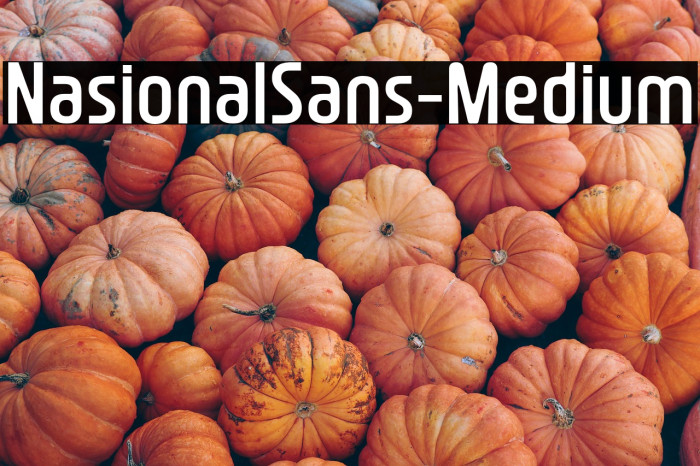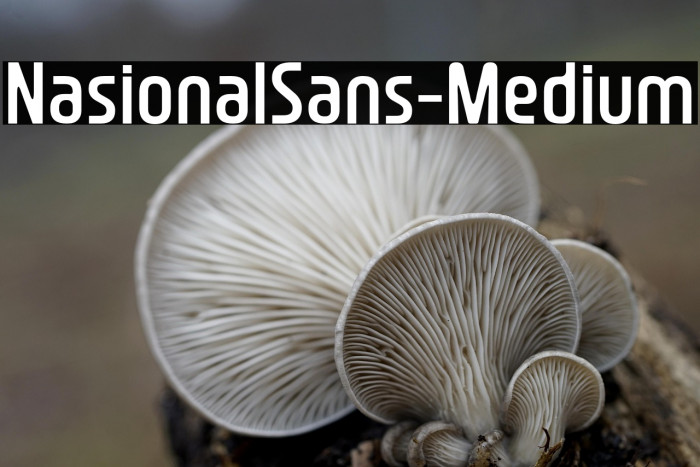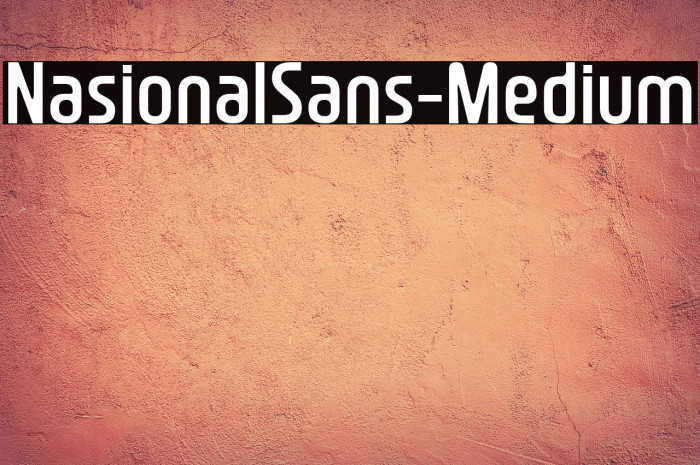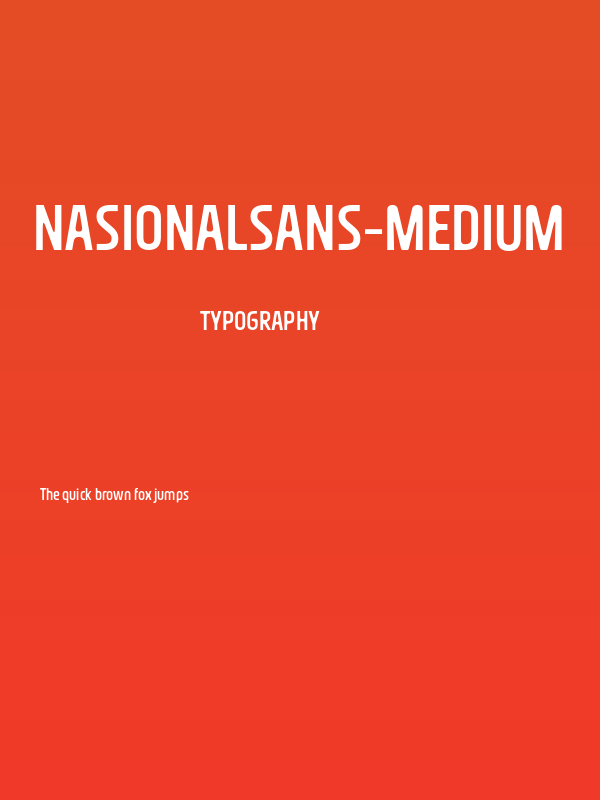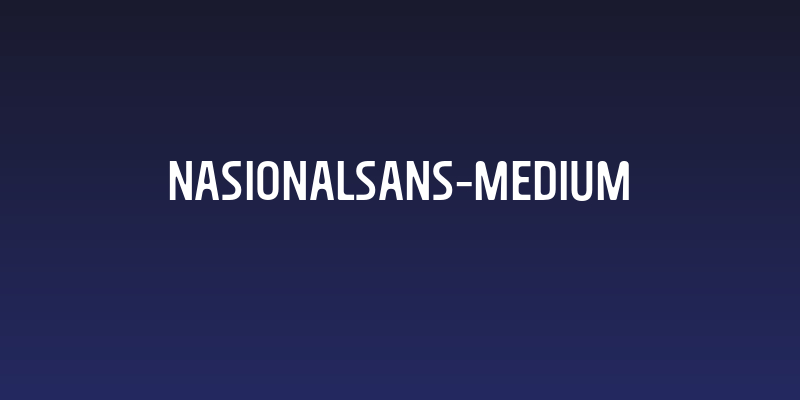
NasionalSans-Medium Font
NasionalSans-Medium Description
This font features a clean and modern sans-serif style with a medium weight, providing a balanced and versatile appearance. The characters are well-proportioned with a slightly condensed width, making it suitable for various design applications. The uppercase and lowercase letters maintain a consistent stroke width, contributing to a uniform and professional look. The numerals and special characters are designed with clarity and readability in mind, ensuring they stand out in any context. Overall, this font exudes a contemporary and sleek aesthetic, ideal for both digital and print media.
| Proposed Projects | Ideal for branding, web design, advertising, and editorial layouts. |